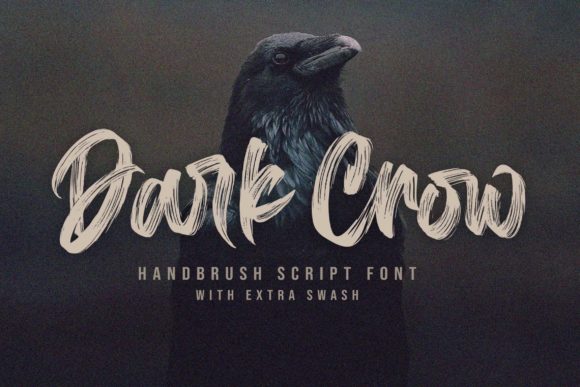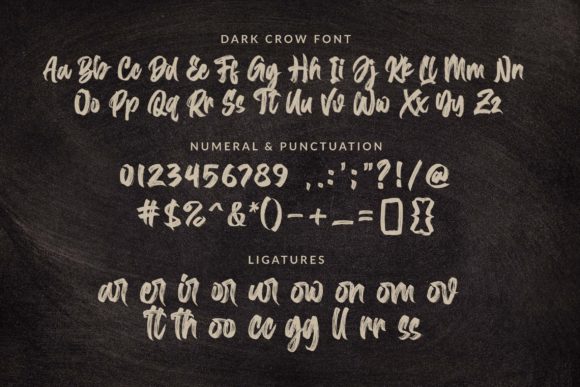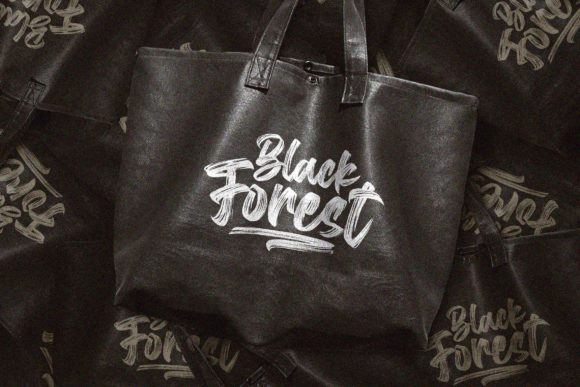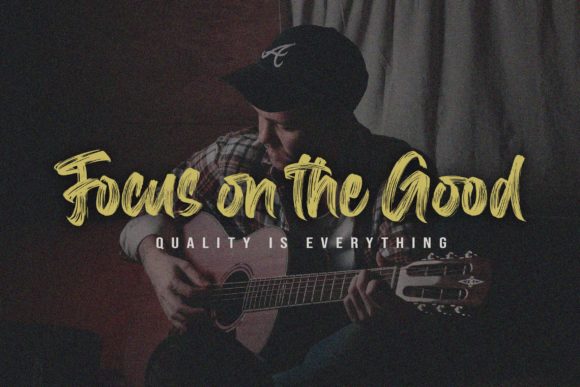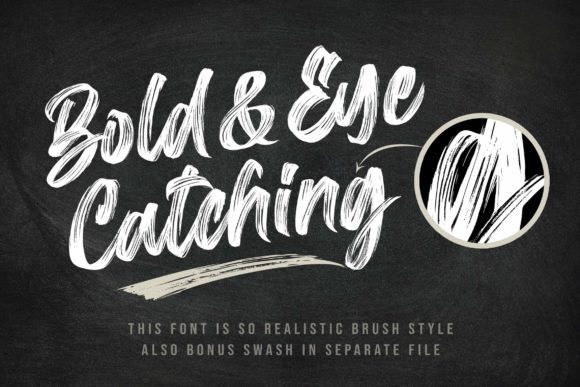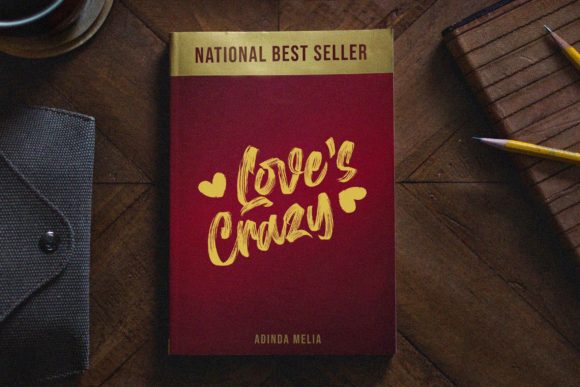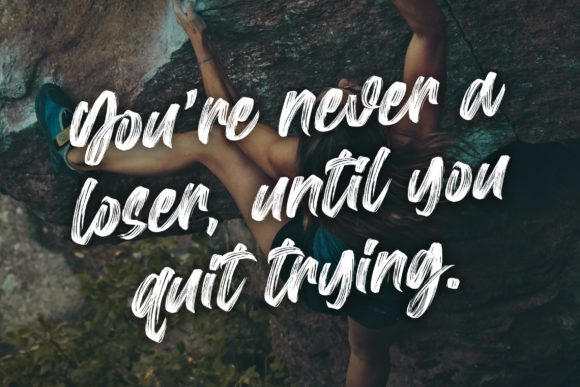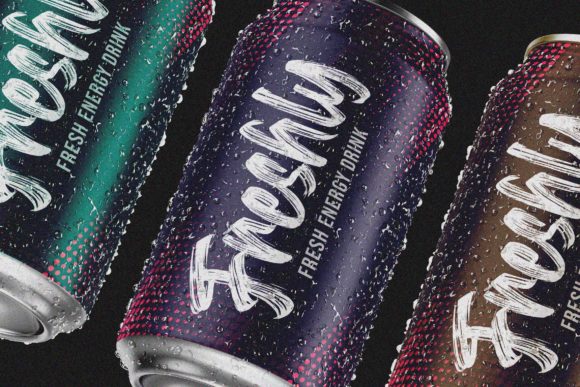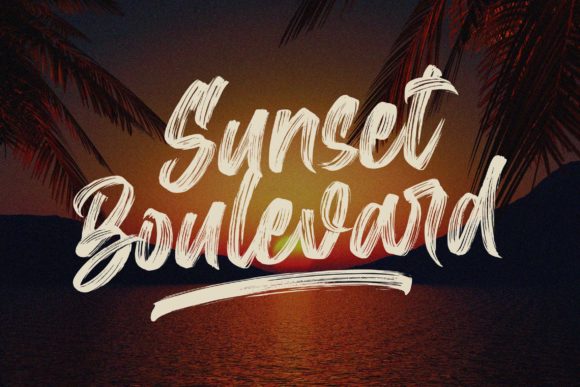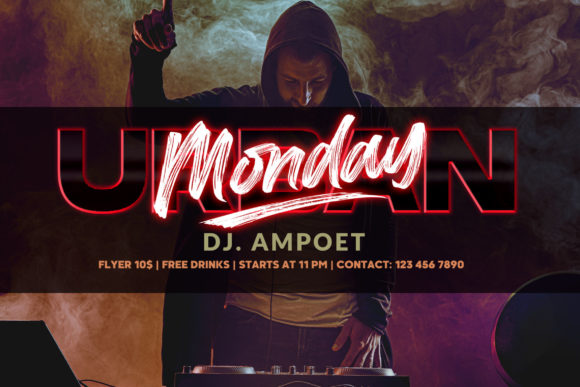
Dark Crow Font
About Dark Crow Font
Dark Crow is an elegant and flowing handwritten font, designed with the help of a unique and outstanding brush pen. Fall in love with its incredibly versatile style and use it to create spectacular designs!